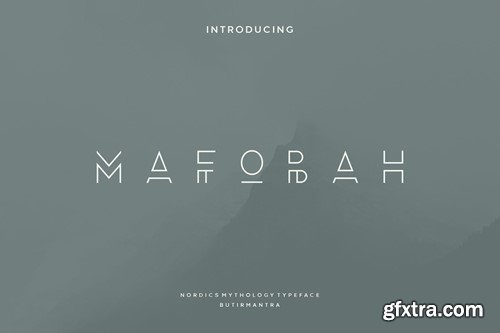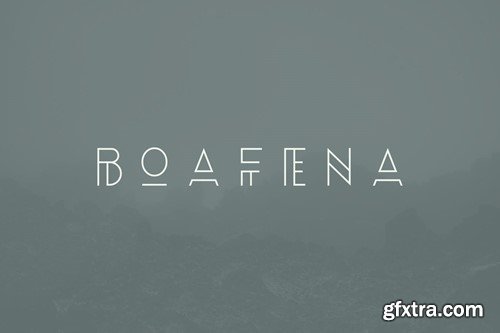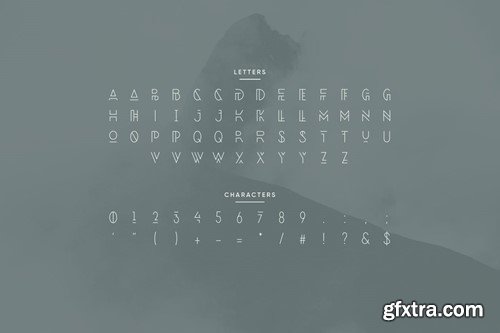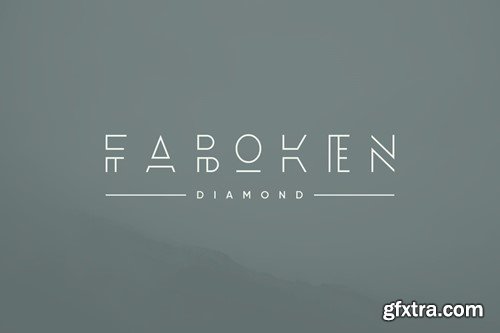
马福巴 - 现代奢华字体 UJRG96M
Mafobah - Modern Luxury Font
Proudly presenting this elegant font inspired by current digital title typography trends, this font is unique with a very modern and luxurious style. The beautiful geometric pieces will be perfect for various types of designs, product packaging logos, fashion and future designs, feel free to use this on futuristic or gaming designs. File Included : Thanks for subscribe and good luck with your project!